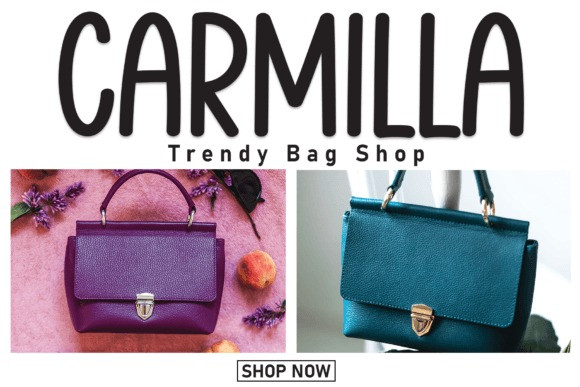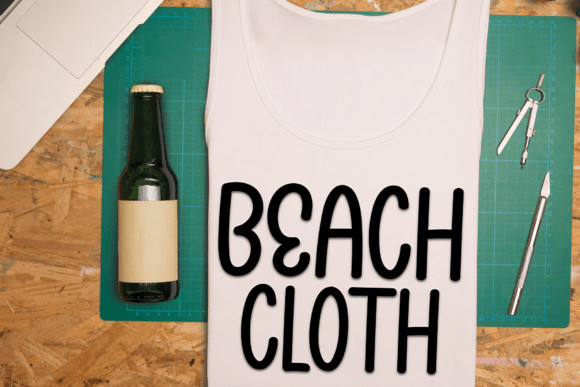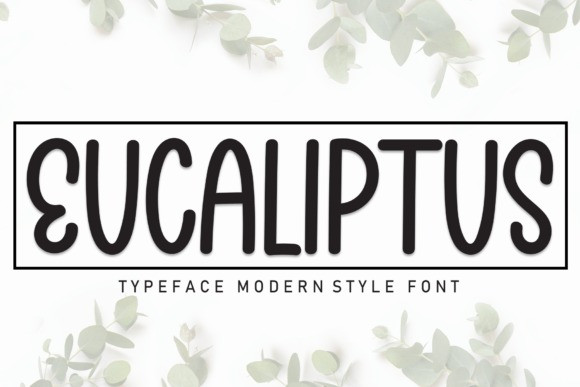
Eucaliptus Font
Eucaliptus Font is a sweet and friendly handwritten font. Fresh and casual, this font is ideal for writing wedding invitations, cards, or any other design that might need a lovely touch.